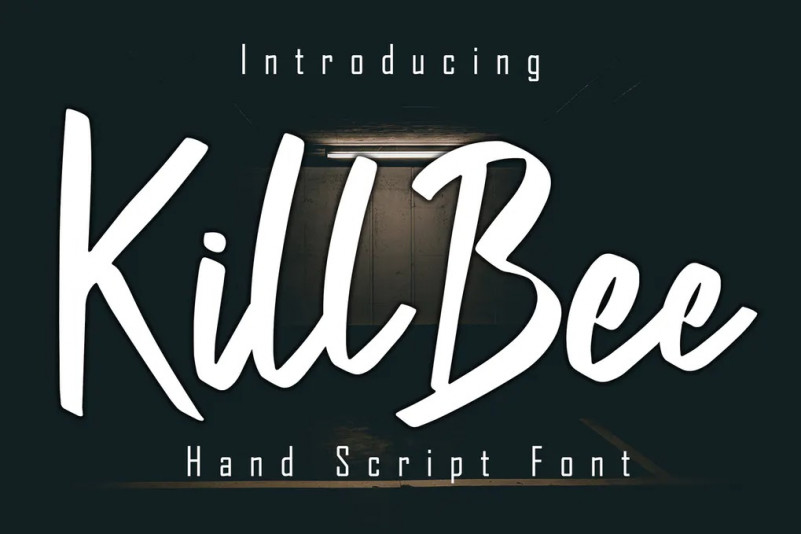
KillBee Font
KillBee Equipped with uppercase, lowercase letters, numbers, punctuation, and so many variations on each character including alternative opentype such as Standard Ligature. Perfect for use for Logotype, Letterhead, Posters, Clothing Designs, Labels, quotes and more